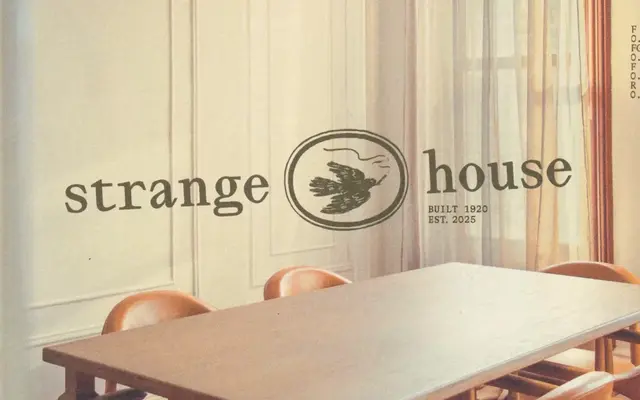
Lettra Mono
Pangram Foundry · Francesca Bolognini, Mat Desjardins · 2024
A monospaced serif by Francesca Bolognini and Mat Desjardins that takes typewriter aesthetics as its starting point, adding strong vertical contrast and diamond-shaped details across eight weights with matching italics.
Each character is individually crafted to maintain consistent weight and proportion within a fixed-width grid, a constraint the designers treat as a design problem rather than a limitation. The typeface draws on classic serif typewriter forms and botanical illustration detail, with the latter informing its distinctive diamond terminals and high contrast strokes. An experimental character set includes unconventional ligatures, a double-width Oo and a sigil, alongside a comprehensive range of OpenType alternates.
A monospaced typeface with explicit serif construction, drawing from typewriter aesthetics with strong vertical contrast and diamond-shaped details. Classified as mono due to fixed-width spacing being the defining structural constraint of the design.